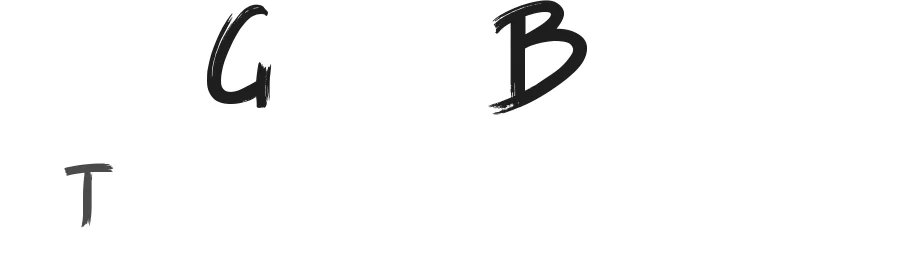
About Mexi Font
Mexi is a script-handwritten font with graffiti sensibility that brings raw energy to any design. Silvano Martinez Mazo created this typeface to capture the fluid, rebellious character of street-style lettering, delivering 236 glyphs across 209+ Latin-based languages. The handwritten construction makes each character feel authentic and lived-in, offering personality that standard fonts struggle to match. Unlike polished scripts, Mexi embraces the spontaneity and attitude inherent in graffiti culture.
This font excels in edgy social media graphics where conventional letterforms feel too corporate, skateboard or apparel designs that target younger audiences, poster layouts for music venues or street events, and streetwear branding that demands rebellious visual language. The graffiti foundation means it performs best when paired with high-contrast imagery or minimal supporting design. Comic lettering, music artwork, and youth-facing campaigns all benefit from its distinctly hand-done aesthetic. Designers working with vinyl decals, custom merchandise, or street-art-inspired layouts will find Mexi particularly effective.
Mexi Font is a script font that shines as a display or heading face. Pair it with a clean sans-serif or serif font for body text β the contrast creates a clear hierarchy while the two styles stay balanced and easy to read.